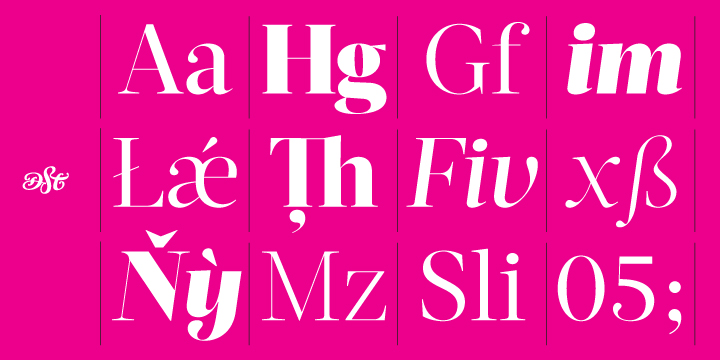
The Acta Display Font is an excellent choice for a variety of impactful design applications. Imagine it captivating readers as a prominent headline on a news website, adding sophistication to the masthead of a luxury brand's magazine, or commanding attention on striking posters and advertisements. Its distinctive character also makes it ideal for book covers, elegant invitations, and any design where you want to make a bold yet refined statement. This font is perfect for projects that demand both strong visual presence and a touch of classic elegance.
What makes Acta Display Font so exciting is its unique blend of traditional elegance and contemporary sharpness. It strikes a perfect balance between classic serif forms and modern, crisp detailing, giving it a distinctive personality that stands out without being overly ornate. This thoughtful design ensures that it's not only beautiful but also highly legible, even at larger sizes. Its refined curves and sharp terminals contribute to an overall impression of quality and authority, making it a truly engaging typeface for any eye-catching design.
The Acta Display Font family is designed to offer a versatile range of options for your creative projects. While specific weights may vary, you'll typically find a selection that ranges from a delicate Light or Regular, perfect for more understated display uses, to a powerful Bold or Black, ideal for maximum impact. This variety allows designers to create dynamic visual hierarchies and emphasize key elements within their layouts. Each weight maintains the unique charm and legibility that define Acta Display Font, ensuring a cohesive and sophisticated look across all your designs. Don't miss the opportunity to explore its potential – Acta Display Font Free Download is available now!